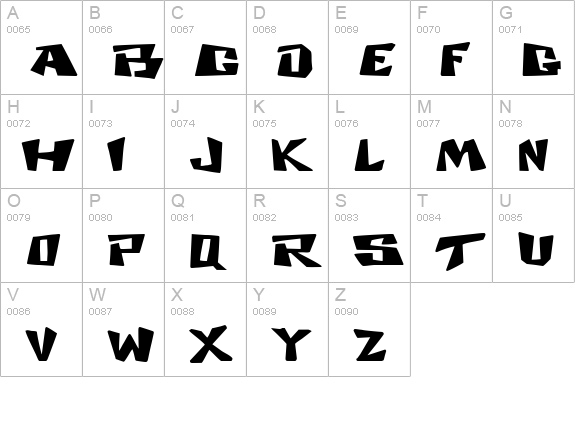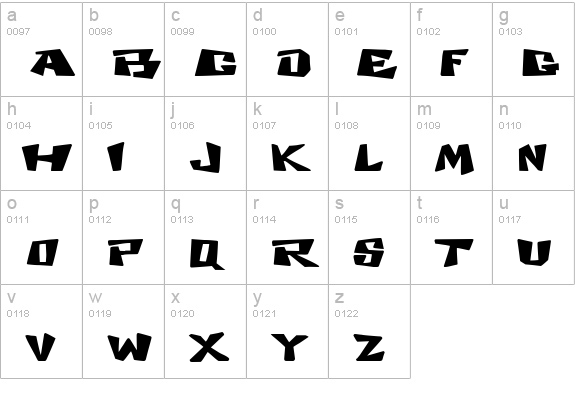
Cosmic Dude Demo Font Details
Introducing Cosmic Dude Demo font, a quirky and playful typeface that will bring a cosmic touch to your projects. This font exudes a fun and futuristic vibe, making it perfect for designs that aim to stand out from the crowd. With its unique shapes and bold characters, Cosmic Dude Demo font is a versatile choice for various creative applications. And the best part? It's free! You can easily download Cosmic Dude Demo font at FontsMarket.com and start using it in your designs right away. Whether you're working on posters, logos, social media graphics, or any other project, this font is sure to add a touch of cosmic charm. Don't miss out on this opportunity to elevate your designs with the free Cosmic Dude Demo font.